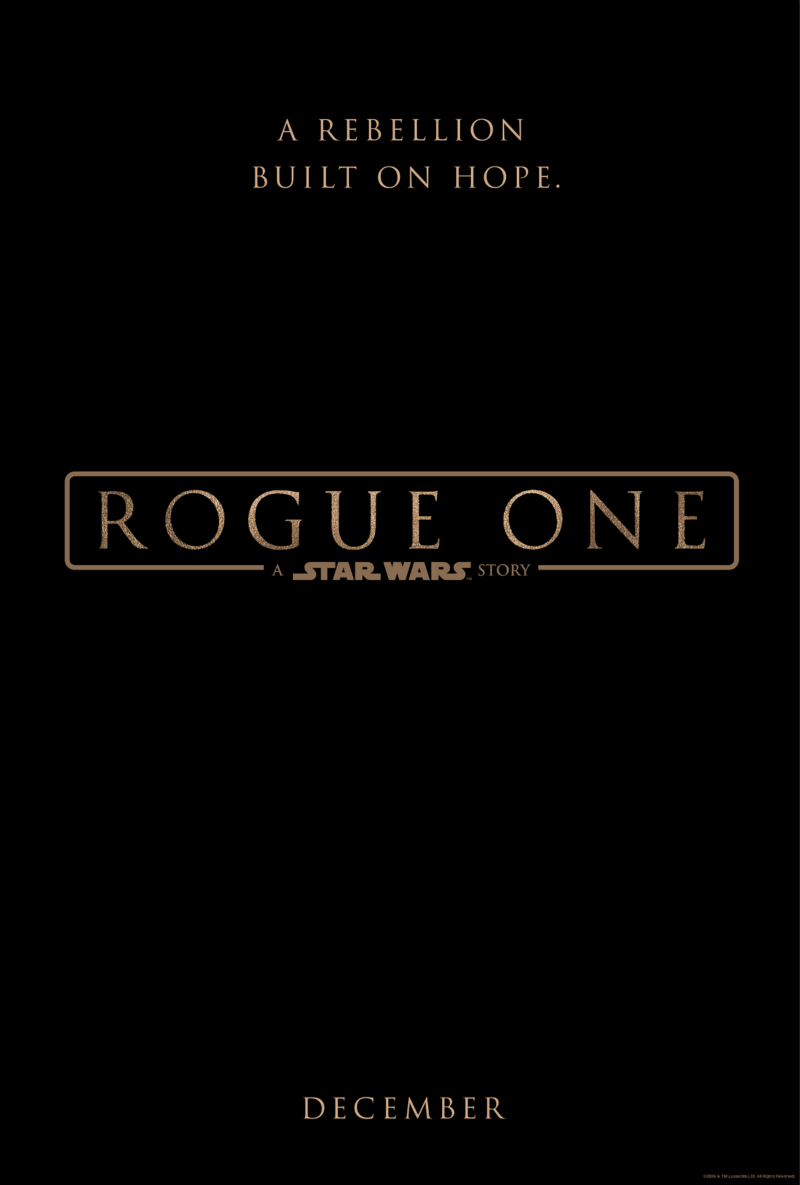
Rogue One (film) Font
Fonts in UseRogue One: A Star Wars Story is a 2016 science-fiction film set in the Star Wars universe. It follows a group of rebels on a mission to steal the plans for the Death Star, a superweapon capable of destroying entire planets.
The movie poster features the title in Trajan, a serif typeface designed by Carol Twombly for Adobe in 1989. Based on Roman square capitals, it's a popular choice for film titles.